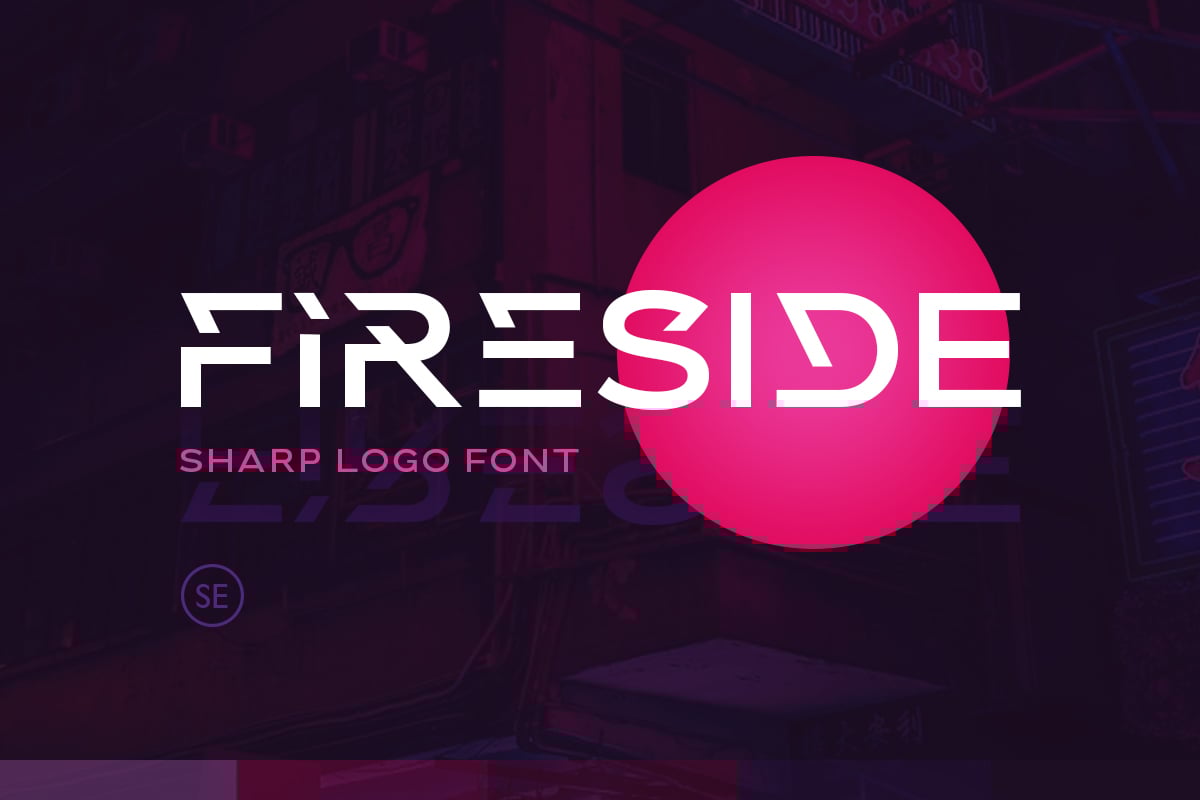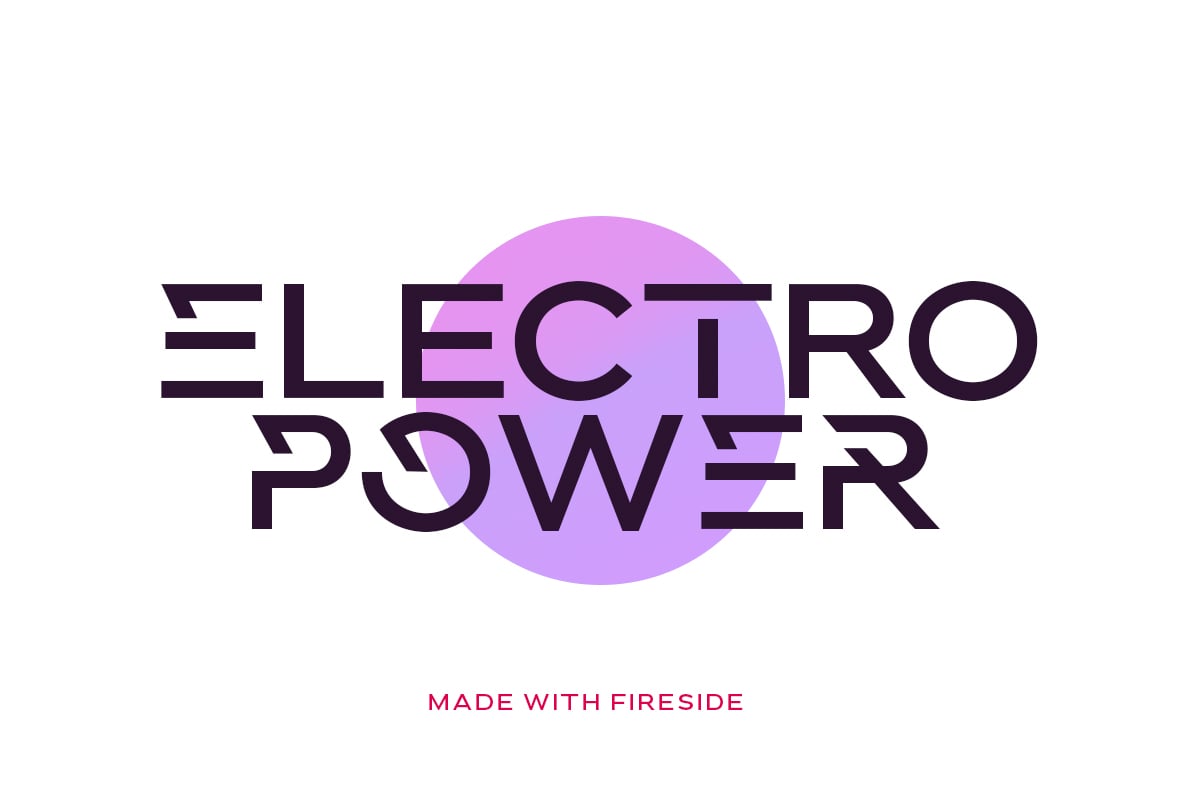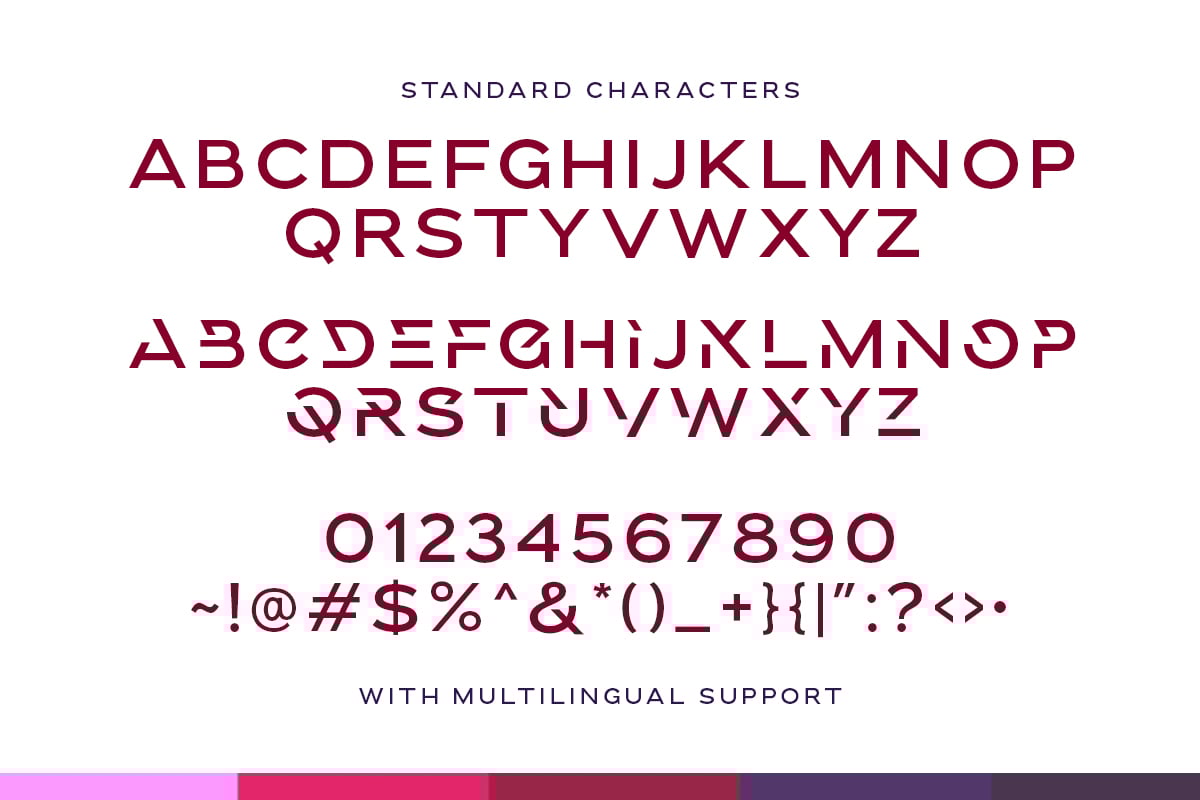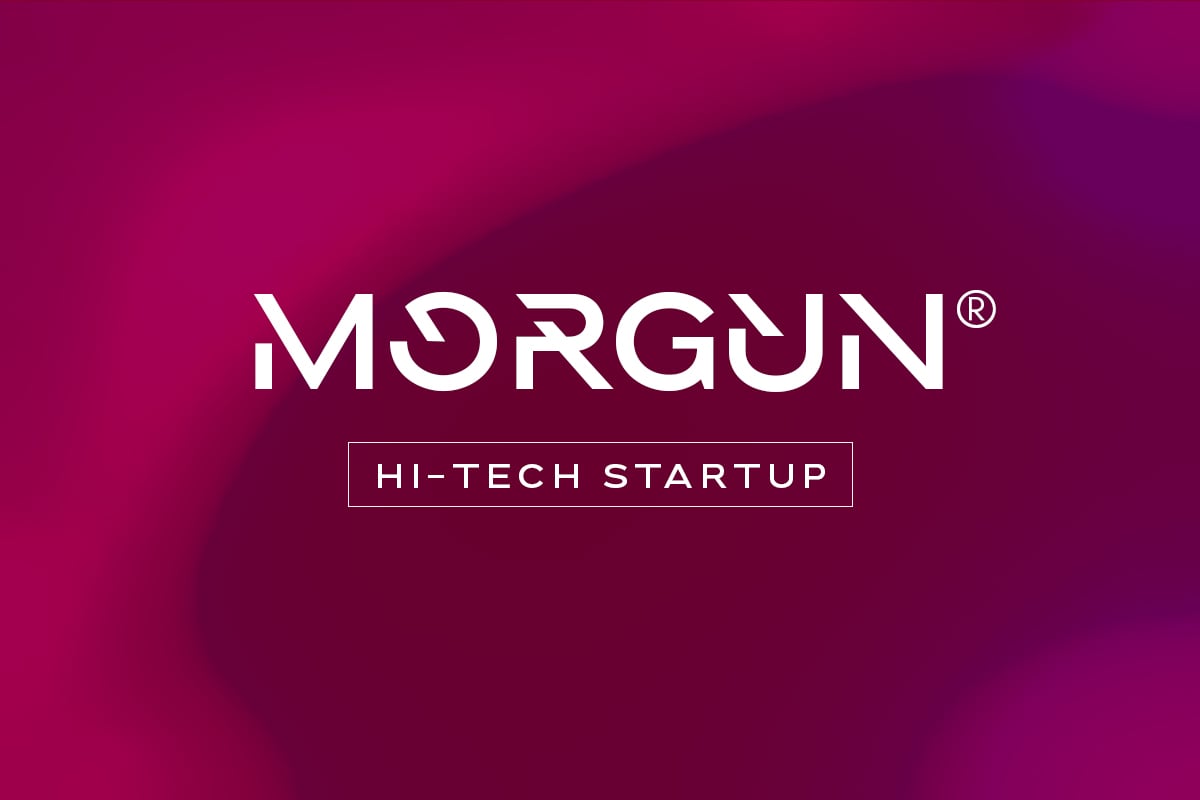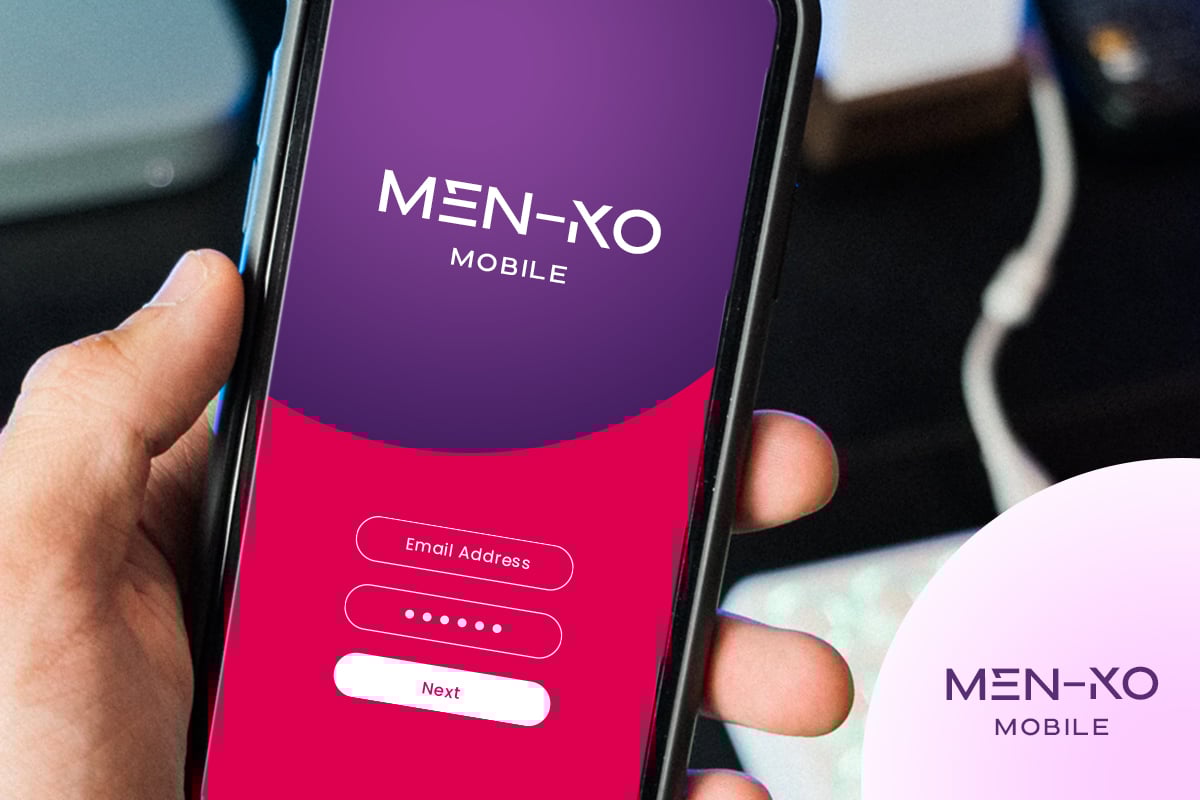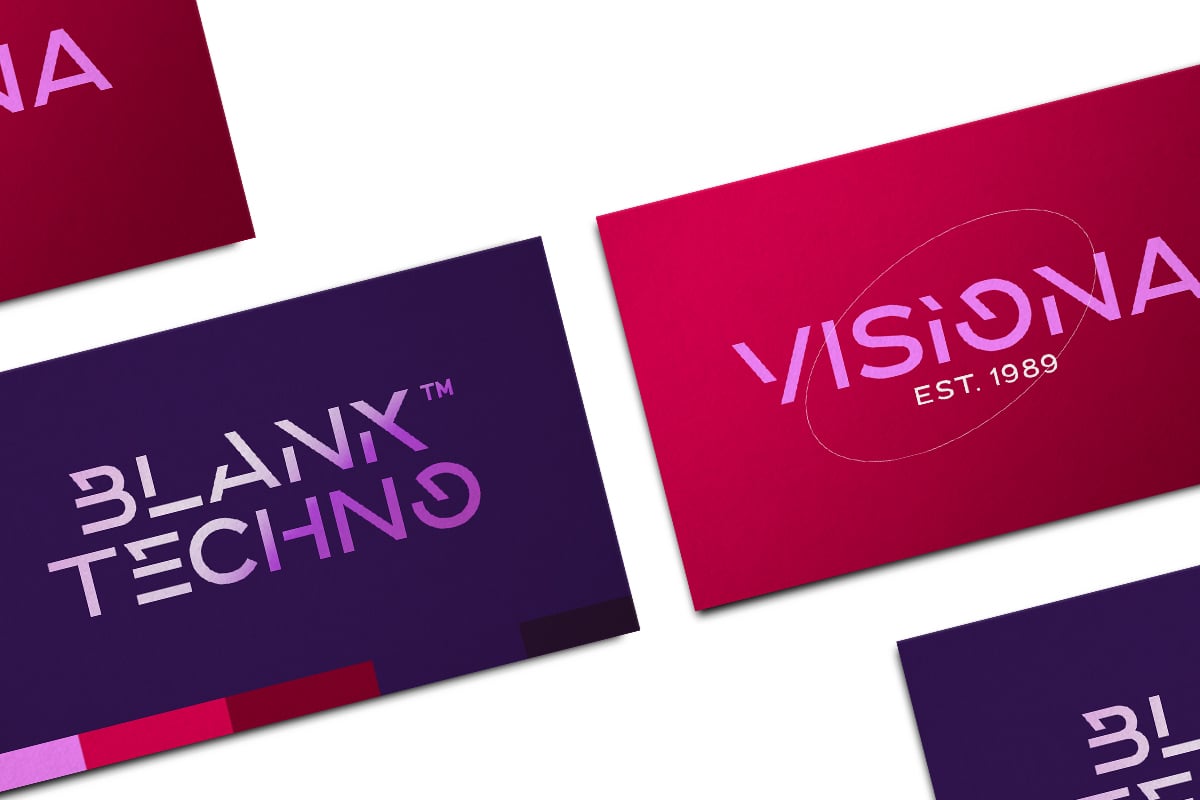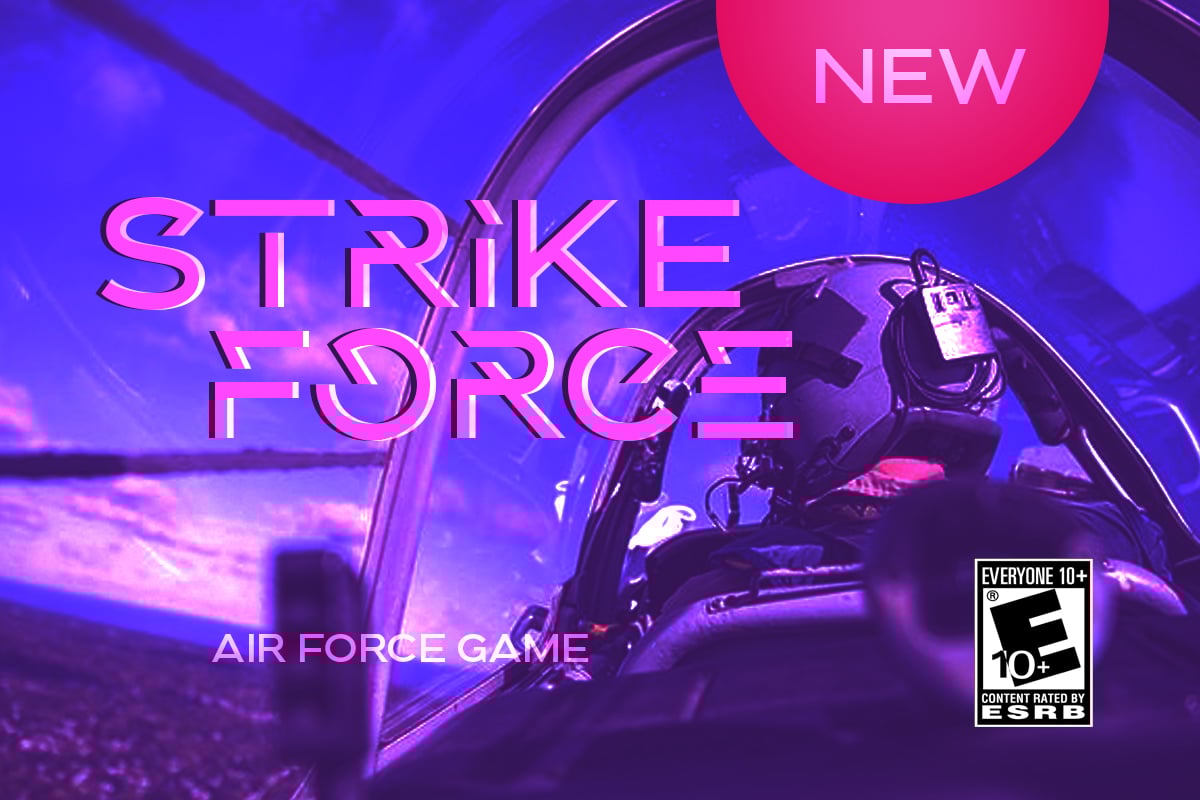
Fireside – Sharp Logo Font
Fireside is a logo font with sharp edge that will make your logo and design looks more futuristic and edgy. With the unique characteristic lowercase, this font will make your logo even more stunning. You can use this font for any purpose, especially to make logo e-sport. You can mix and match the uppercase and lowercase to make your logo more advanced. This font also comes with number, symbol, and multilingual support!